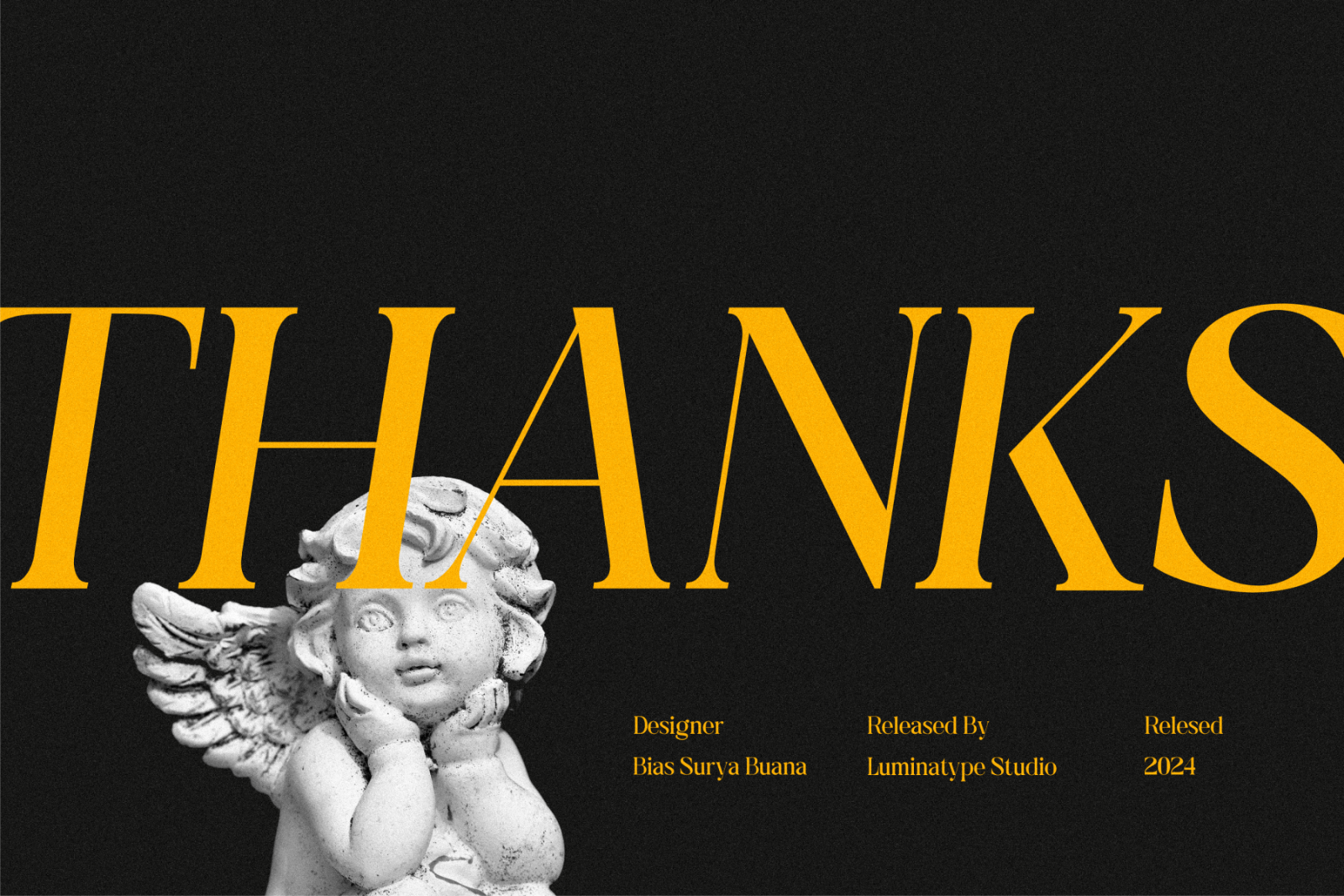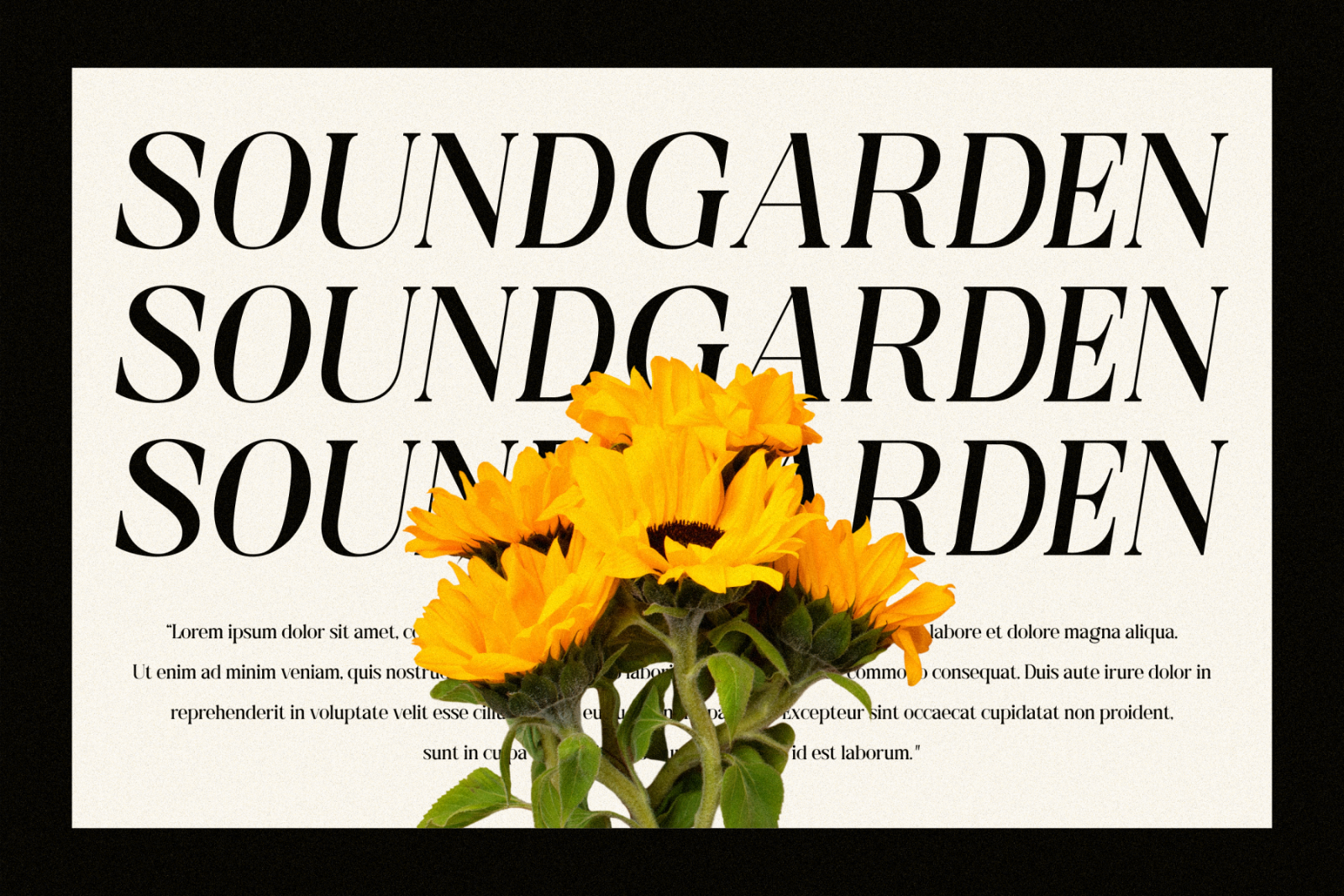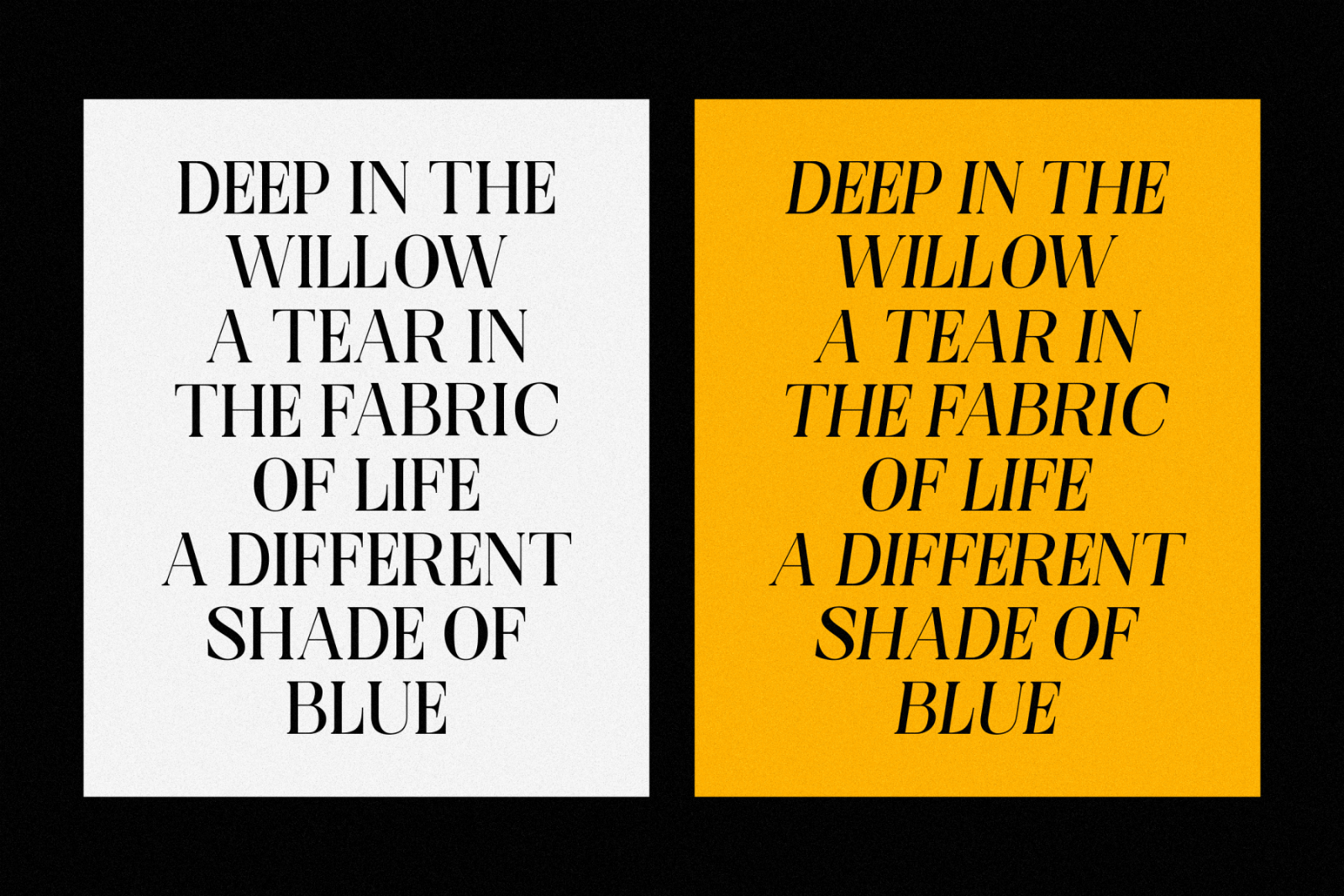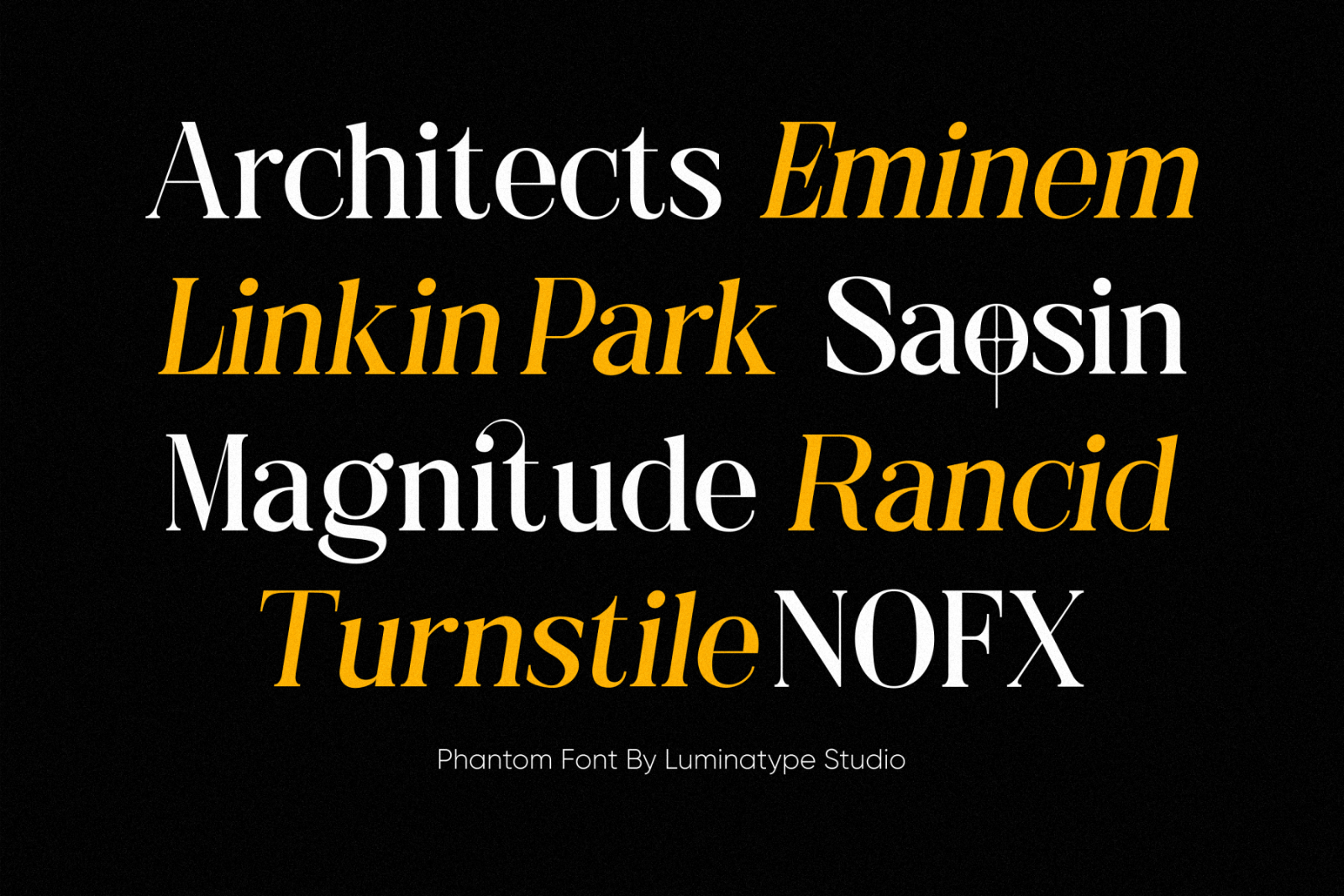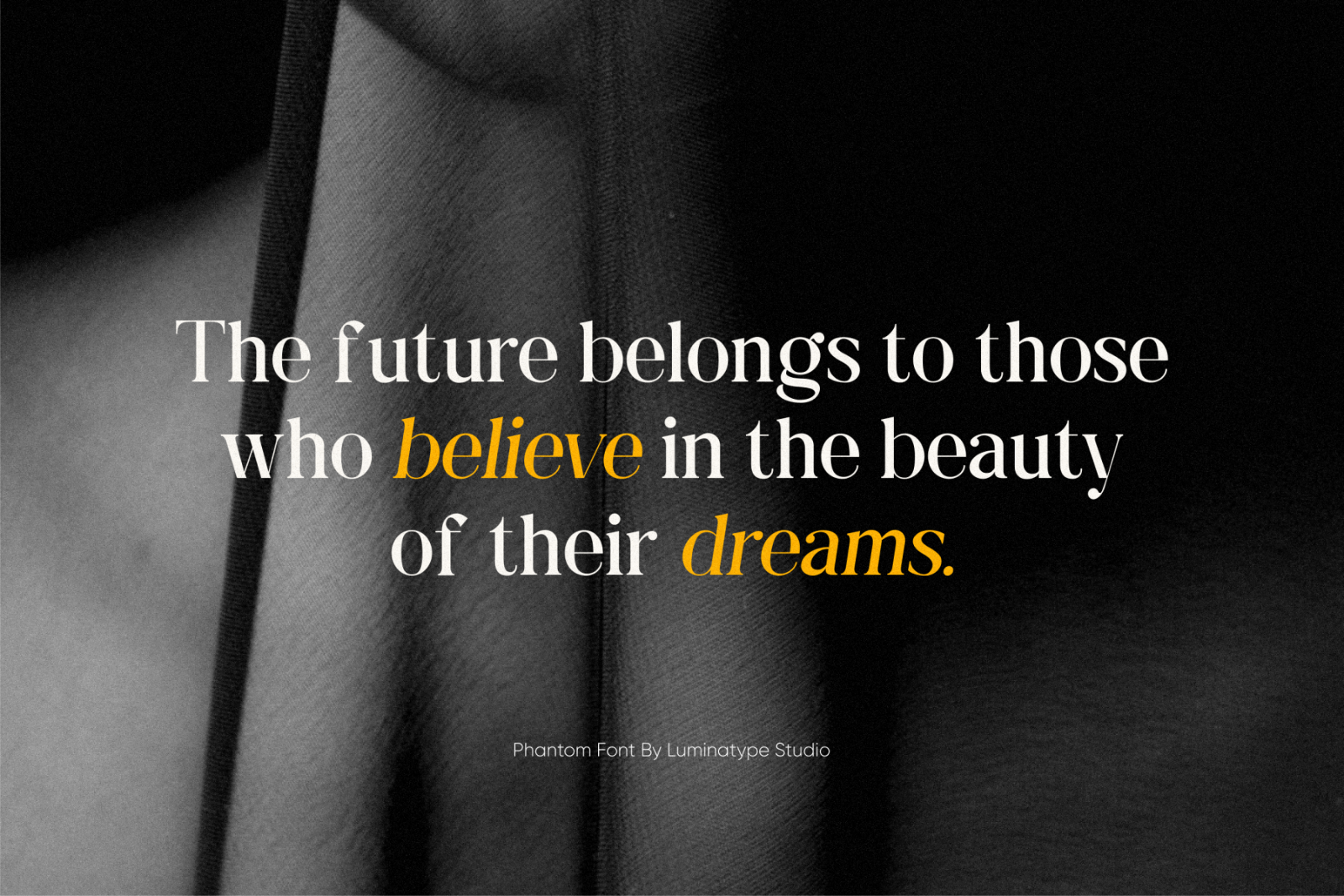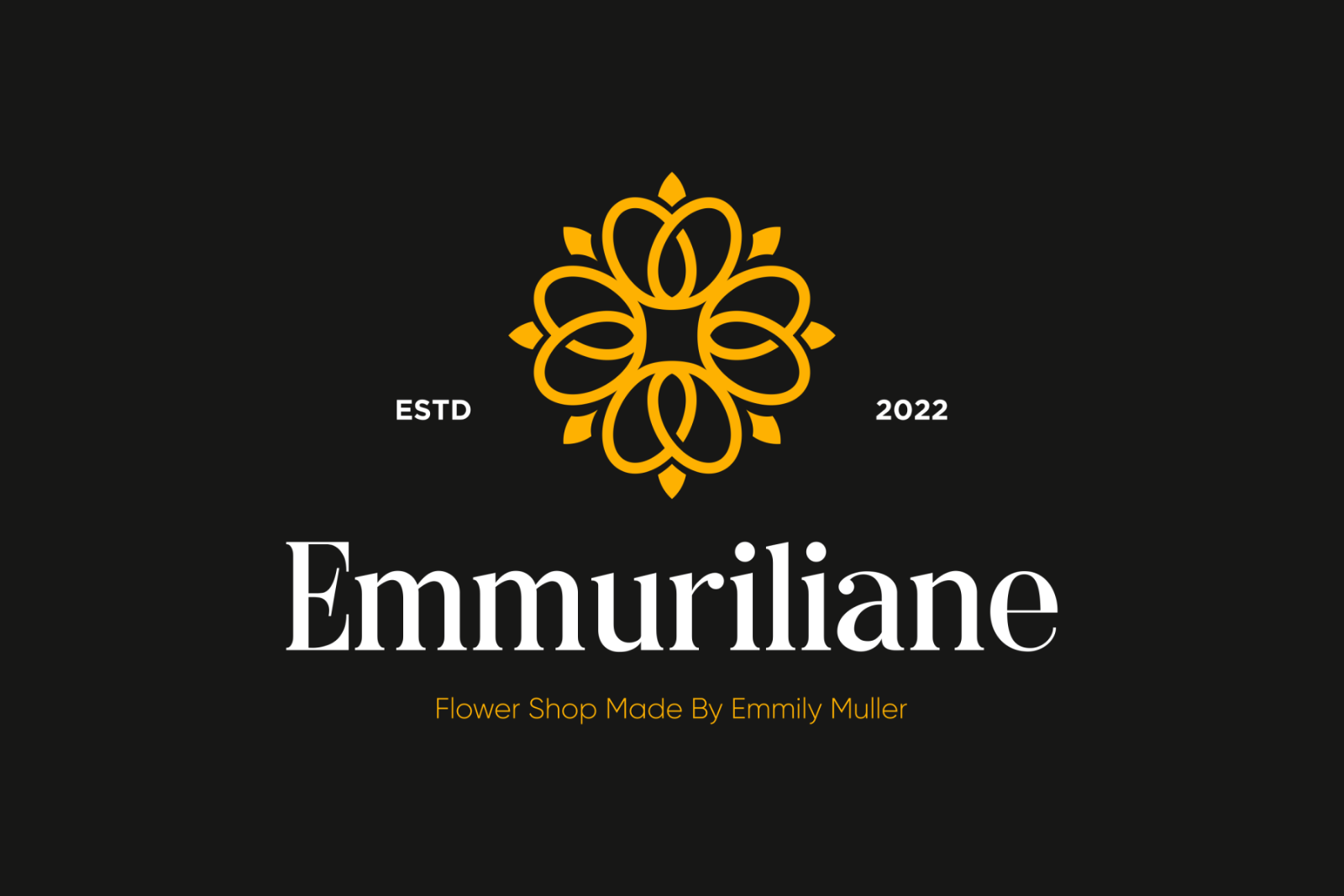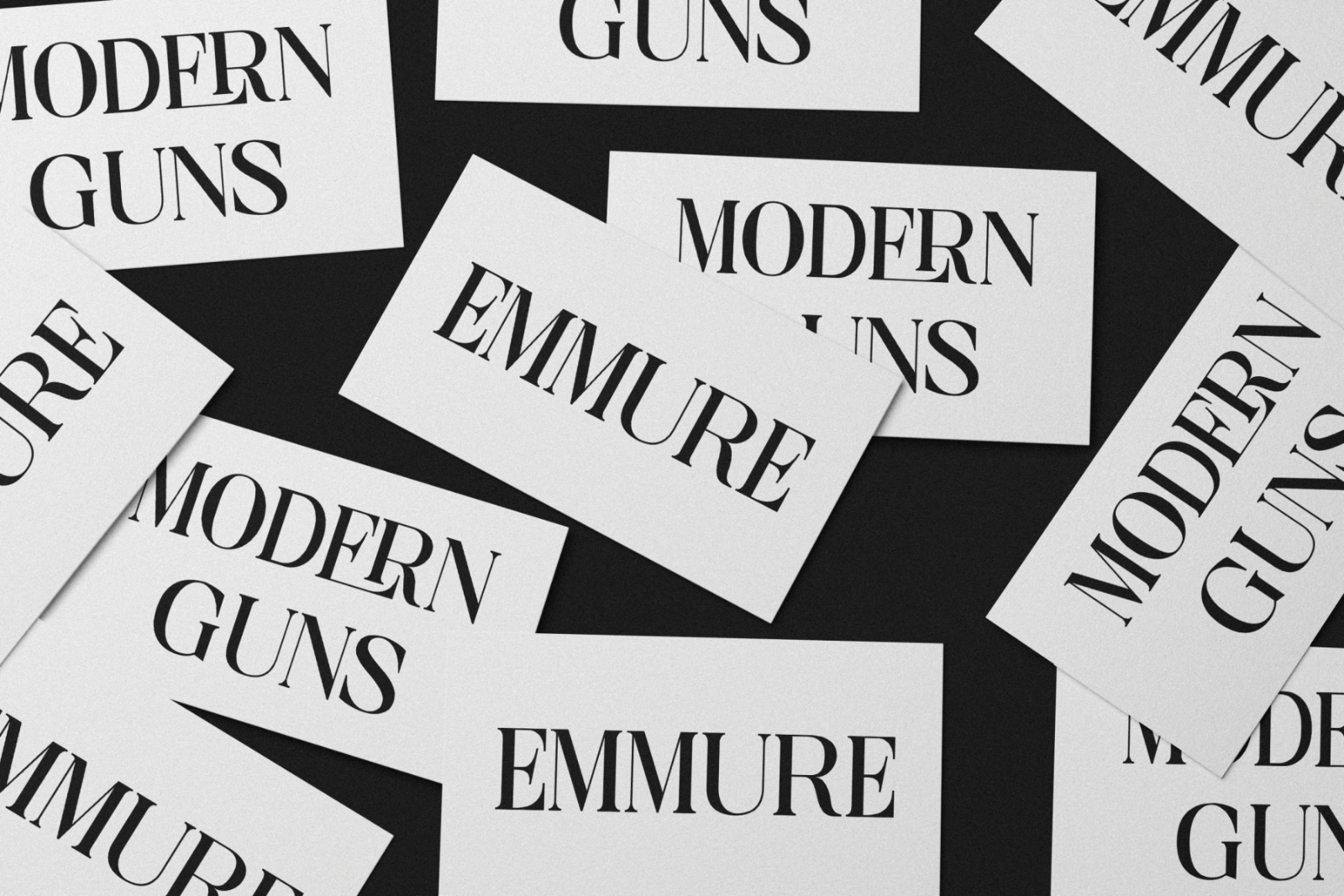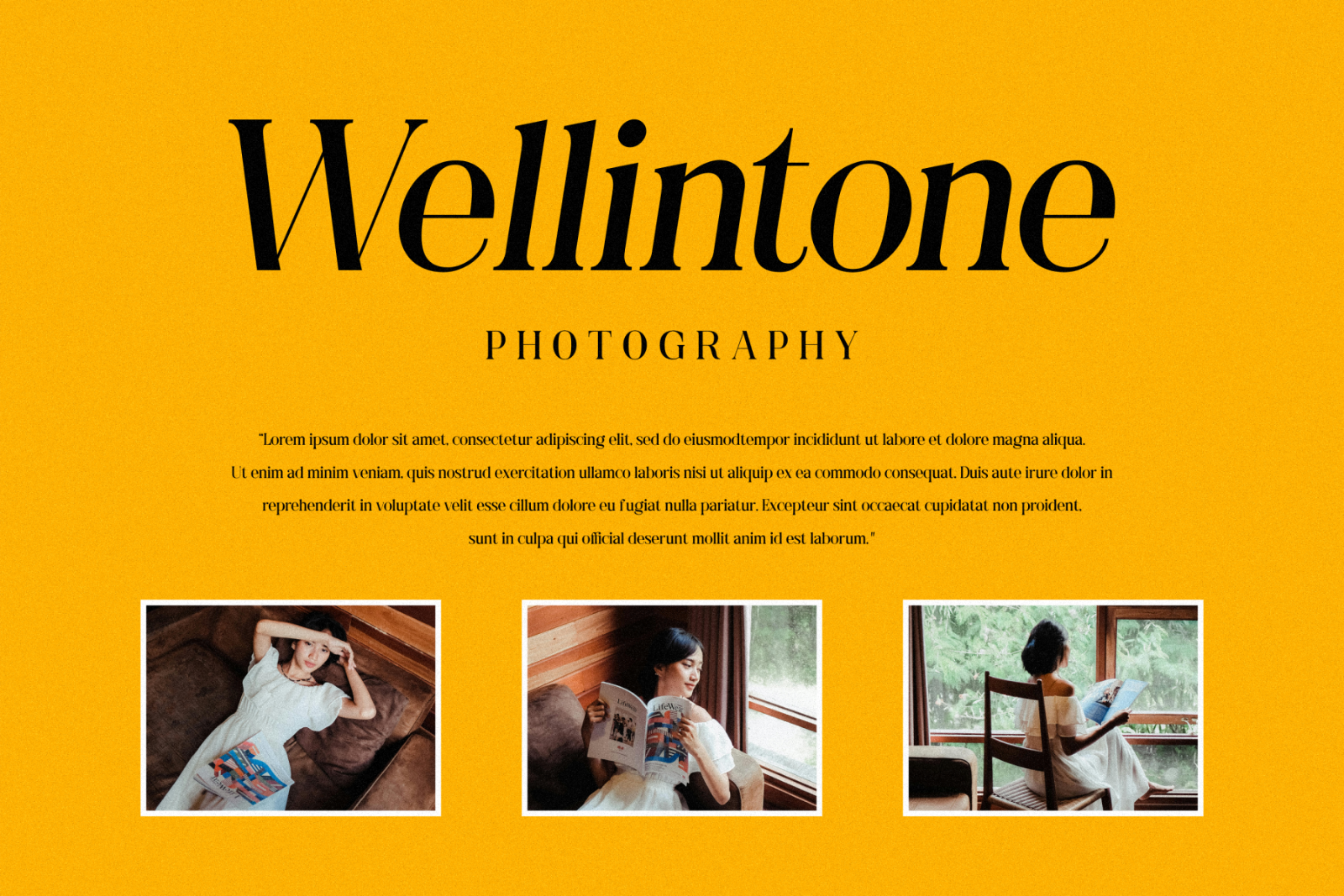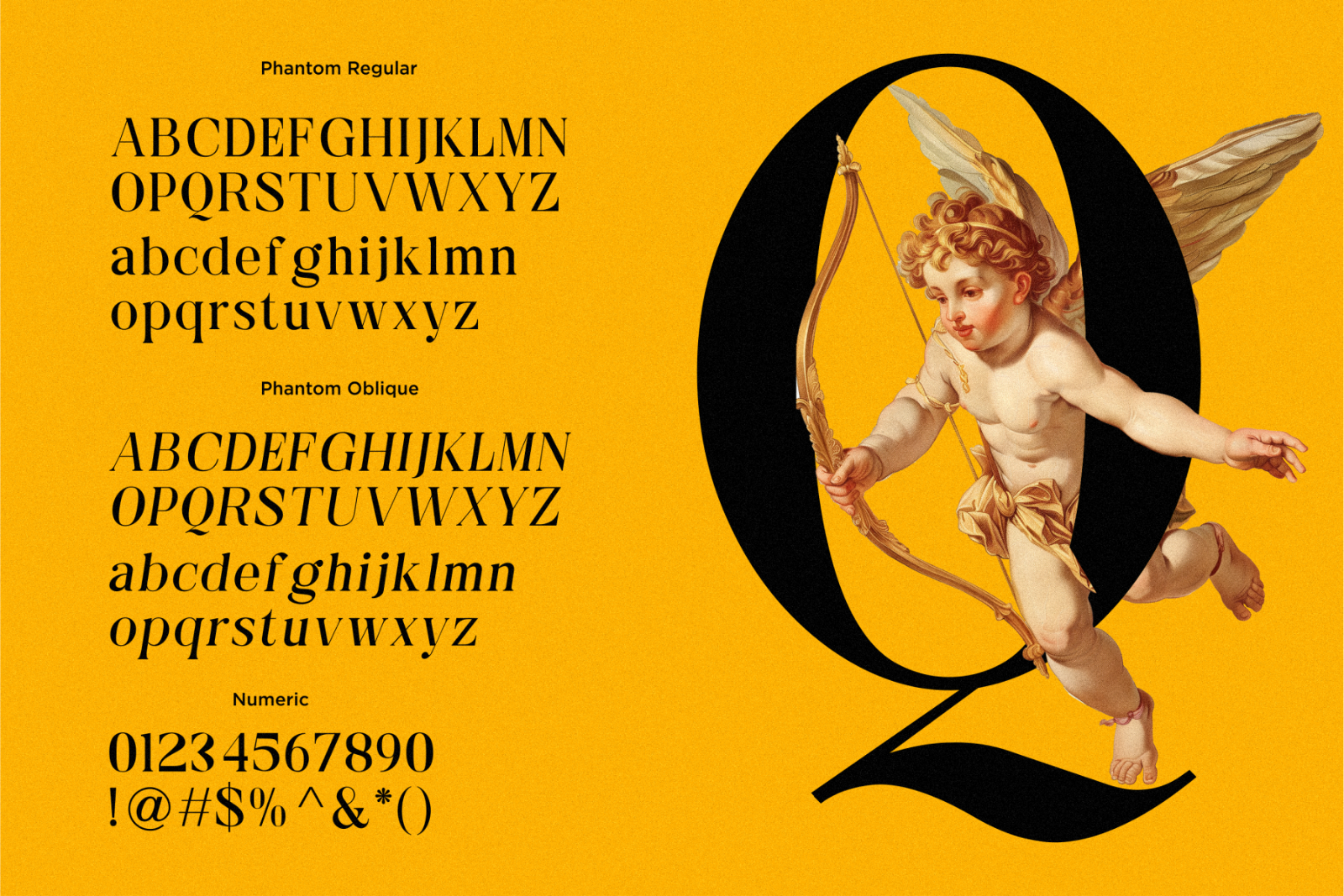
PHANTOM a Modern Display Serif with 2 Style Phantom Regular & Phantom Oblique created to express things in a modern way. Inspired by modern serif typefaces trend around the world.
Phantom is perfect for display purposes such as editorial projects, Logo designs, Music Albums, Apparel Branding, Product Packaging, Magazine Headlines, or simply as a stylish text overlay on any background image.